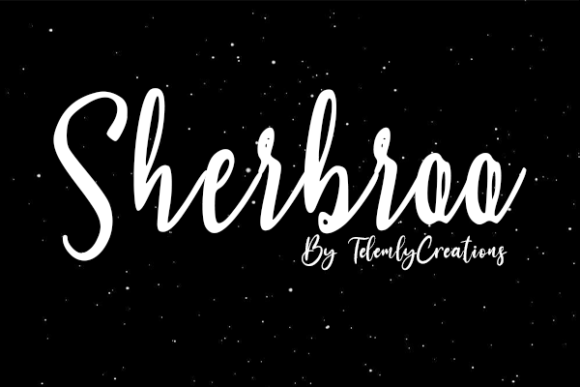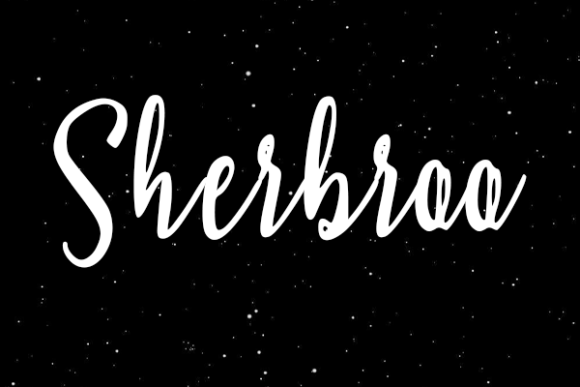
Sherbroo Font
About Sherbroo Font
“Sherbroo” is more than just a font; it’s a versatile typeface that stands out as the ideal choice for creating eye-catching logos, branding, and quotes. Each letter is crafted with a unique and beautiful touch, bringing your design to life with a distinctive and engaging aesthetic.
The versatility of “Sherbroo” makes it a standout option for a range of design projects. Imagine it transforming logos, adding a touch of sophistication to your brand identity, or infusing quotes with a sense of style and elegance.
Envision “Sherbroo” becoming an essential element in your branding toolkit, contributing to a design that is not only visually appealing but also possesses a unique character. The beautiful touches on each letter ensure that your text stands out and makes a lasting impression.
For quotes that demand a touch of sophistication and creativity, “Sherbroo” shines as a font that elevates the visual impact of your text. Its distinctive style adds a layer of personality and charm to your quotes, making them more memorable.
In any context that requires an eye-catching and unique typeface, “Sherbroo” is the font that delivers. Let it be the key element that enhances your logos, branding, and quotes, making them more visually striking and distinctive.
Whether you’re working on digital or print designs, “Sherbroo” is a font that brings a touch of elegance and uniqueness. Let it be the font that adds that special touch to your designs, making them more memorable and visually impactful.
Let “Sherbroo” be the font that elevates your design projects, turning them into visually stunning and engaging expressions. Embrace its unique charm, and watch it bring a new level of sophistication to your logos, branding, and quotes.